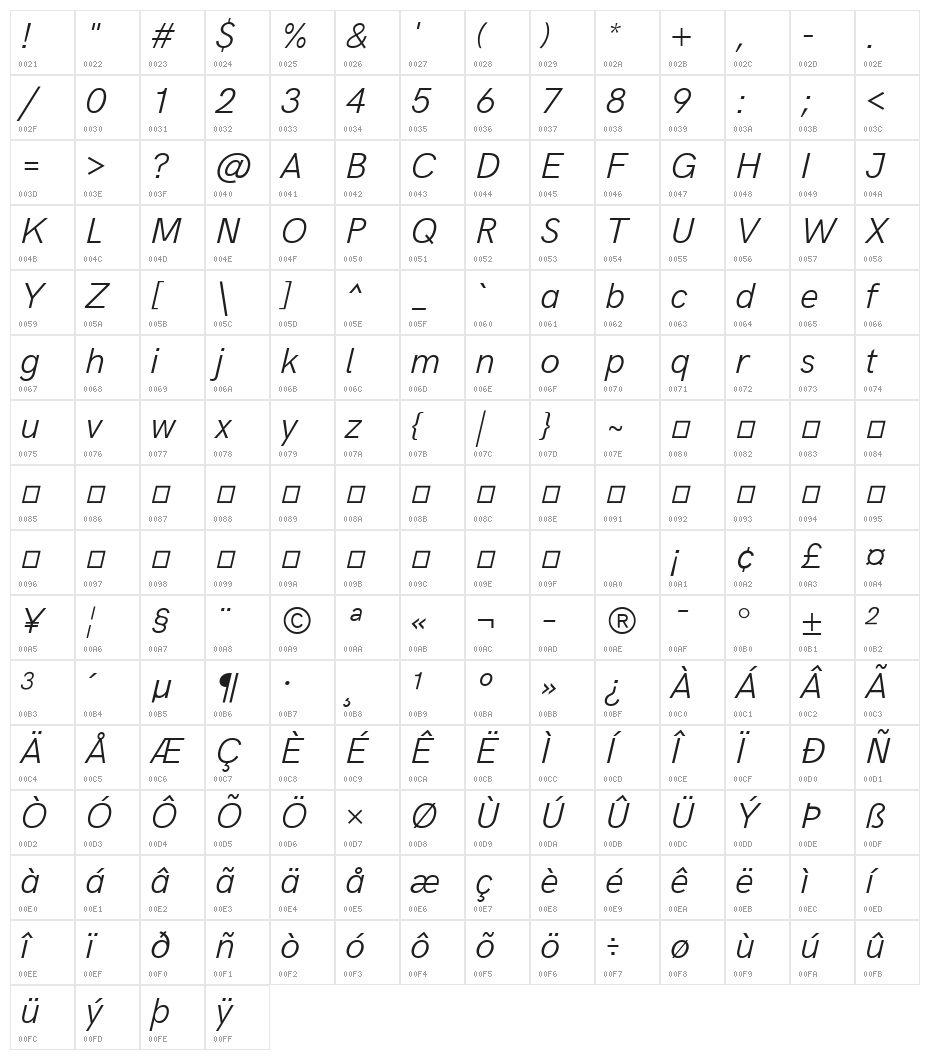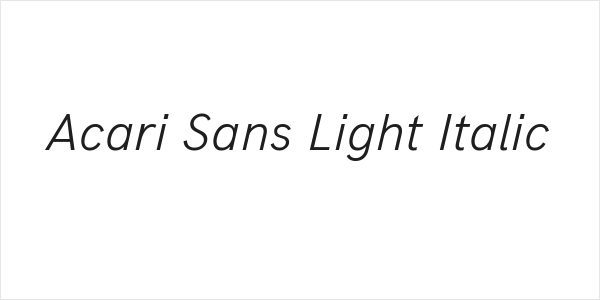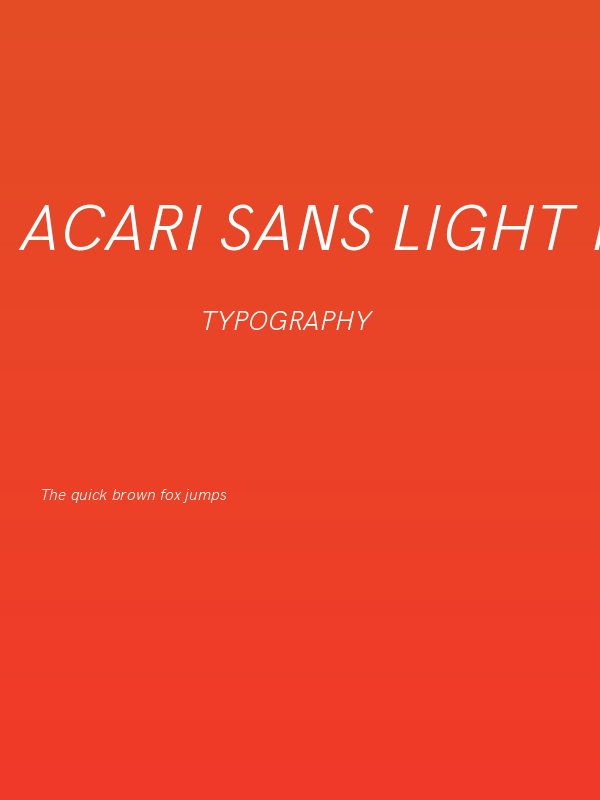
Acari Sans Light Italic Font
Acari Sans Light Italic Description
This font features a clean and modern sans-serif design with a light weight and italic style. The characters are elegantly slanted, providing a sense of motion and fluidity. The strokes are consistent and smooth, contributing to a sleek and professional appearance. The uppercase and lowercase letters maintain a uniform height, enhancing readability. The numerals are well-proportioned, and the special characters are distinct and clear. Overall, this font exudes a contemporary and sophisticated vibe, making it suitable for a variety of design applications.
| Proposed Projects | Ideal for branding, editorial design, digital interfaces, and modern advertising campaigns. |